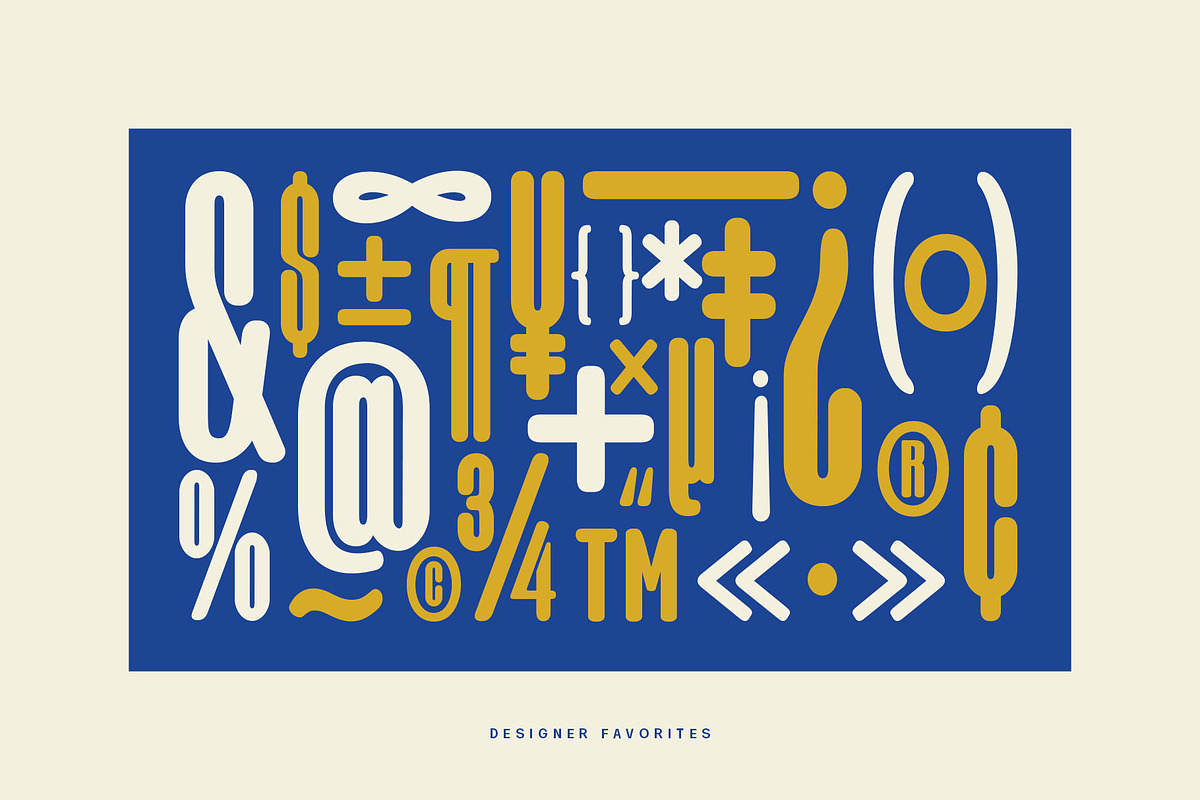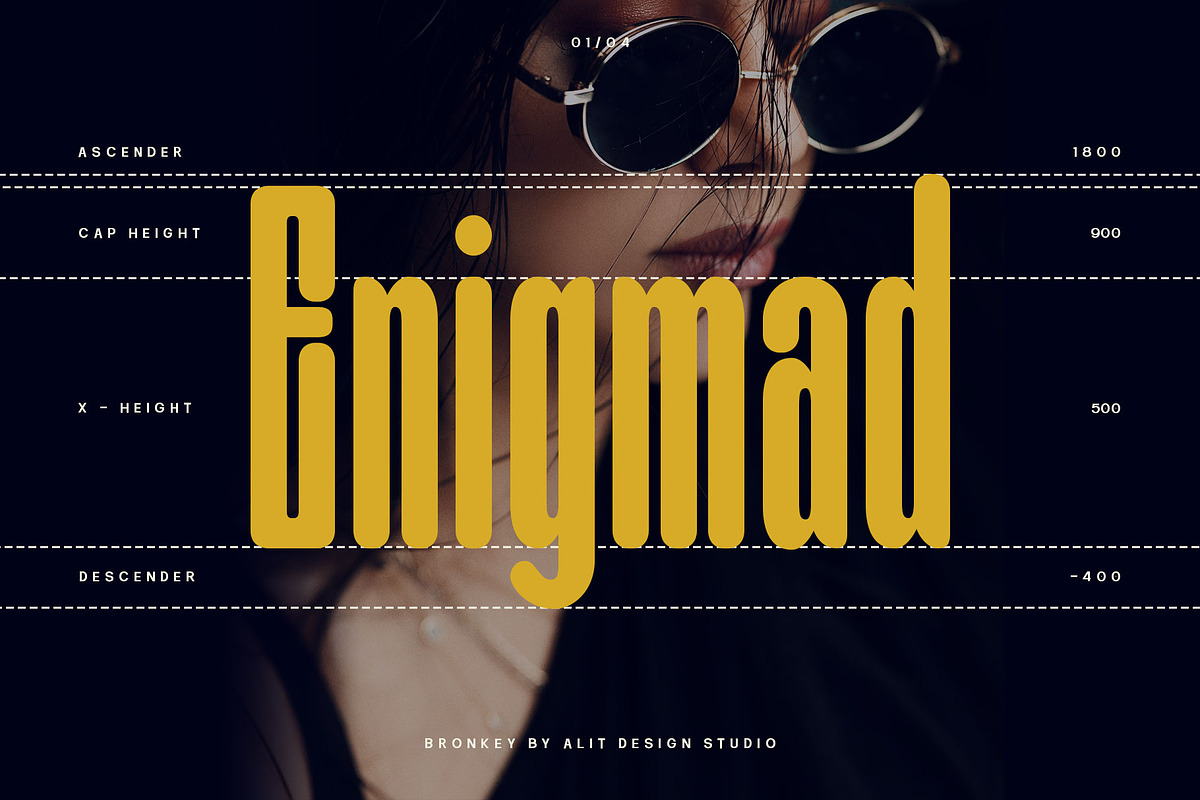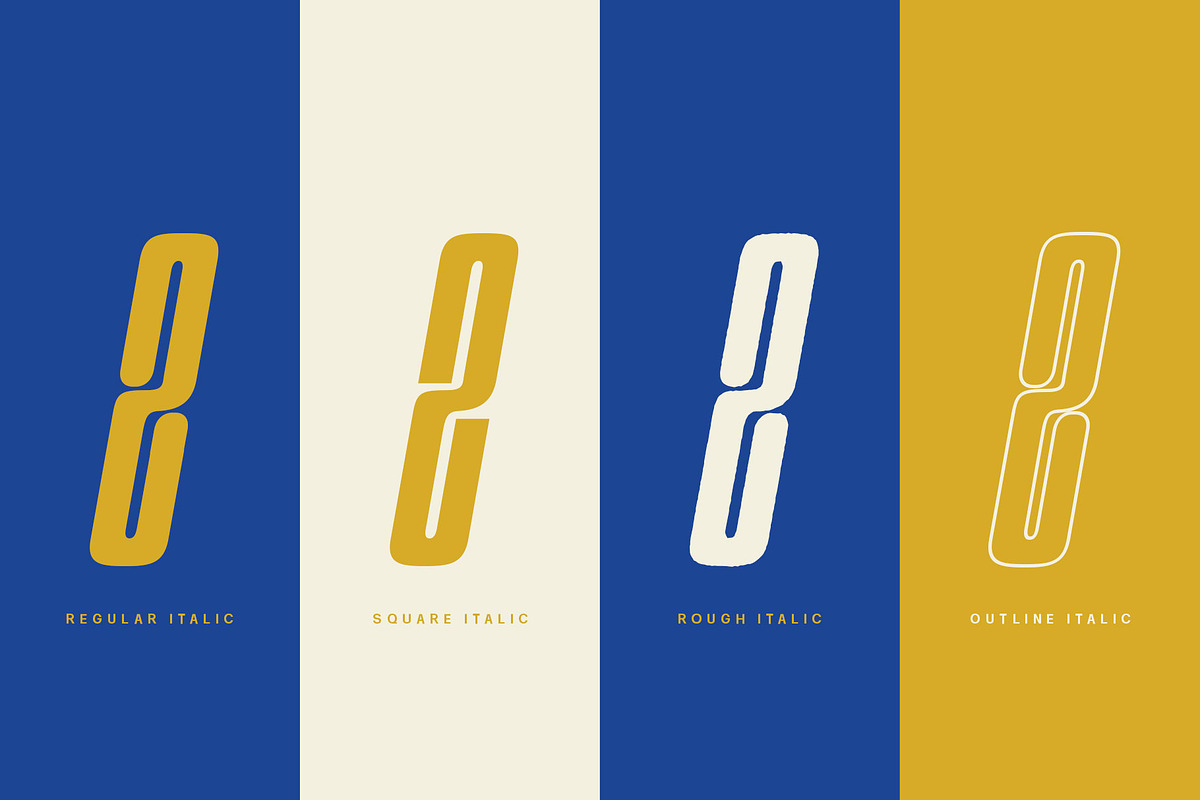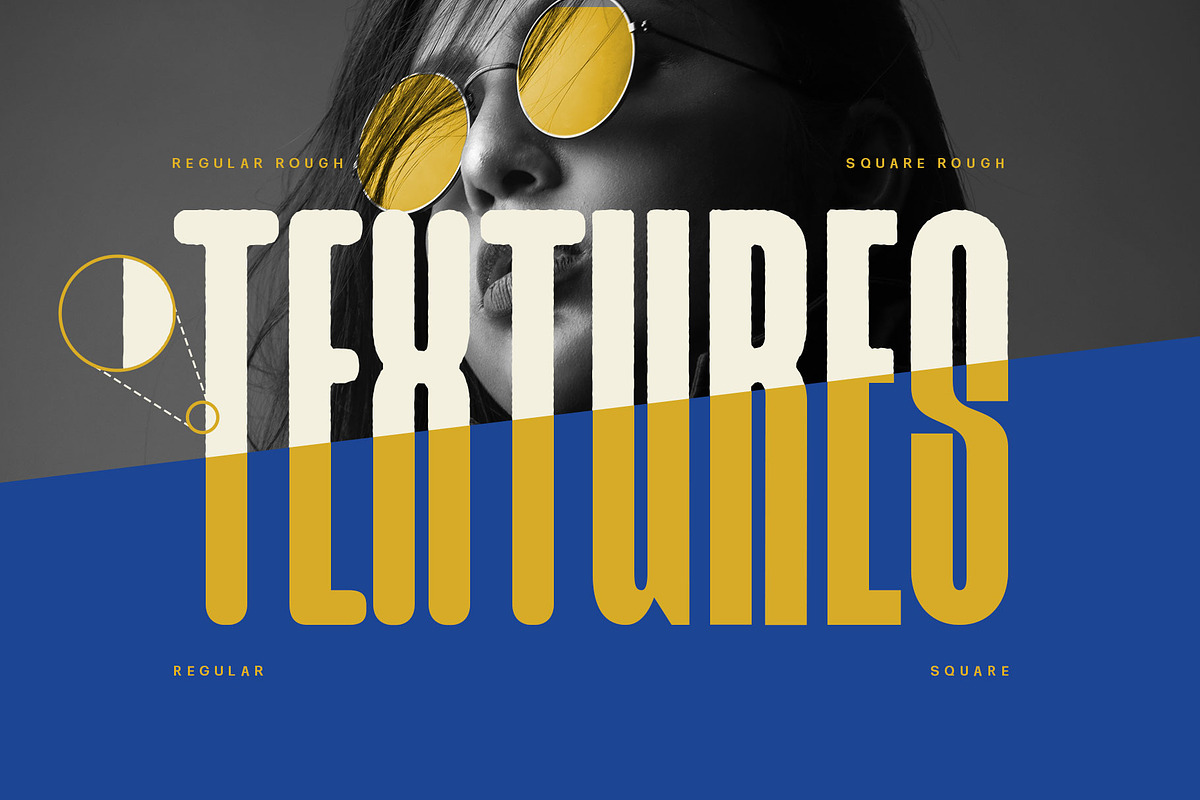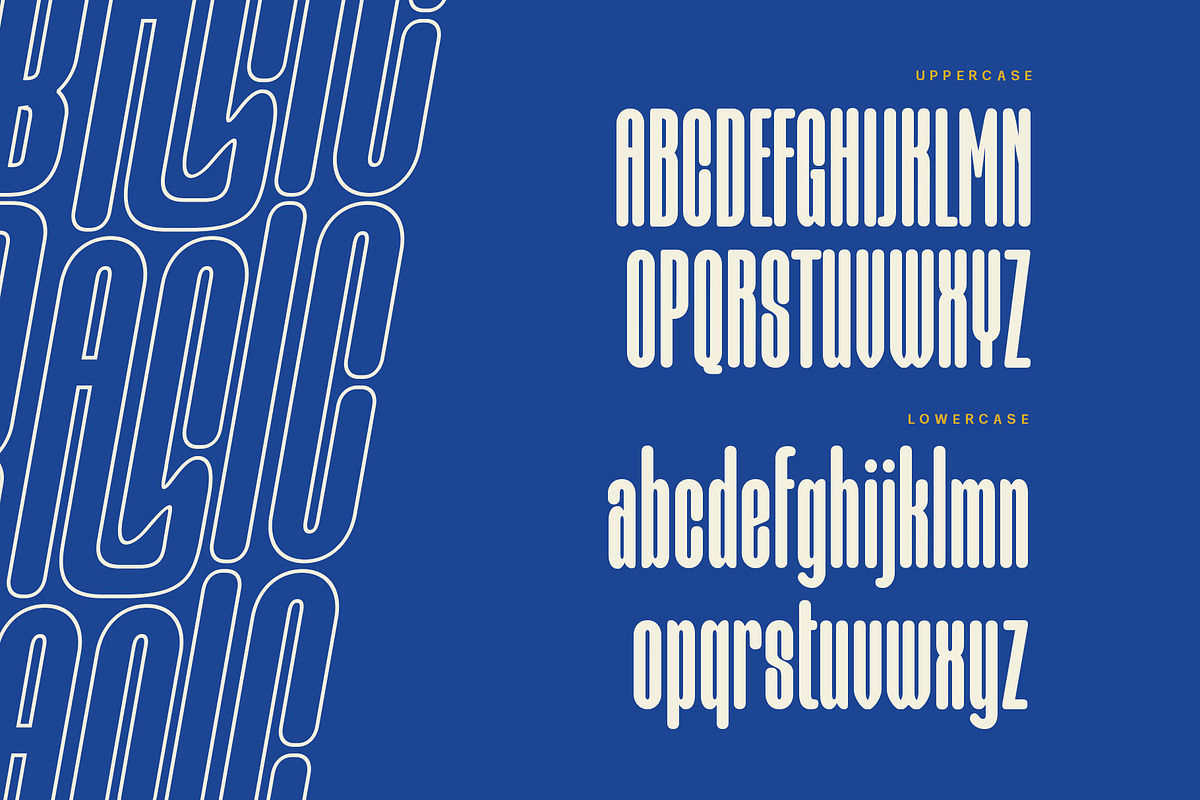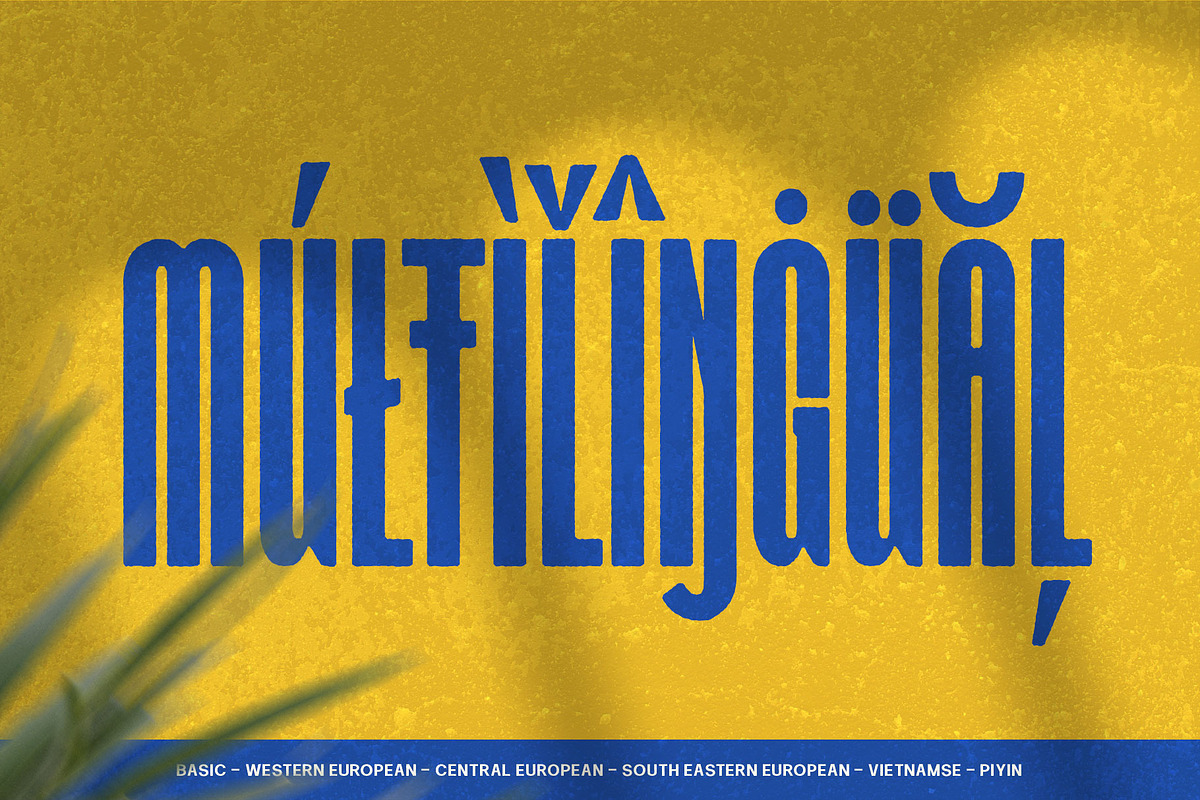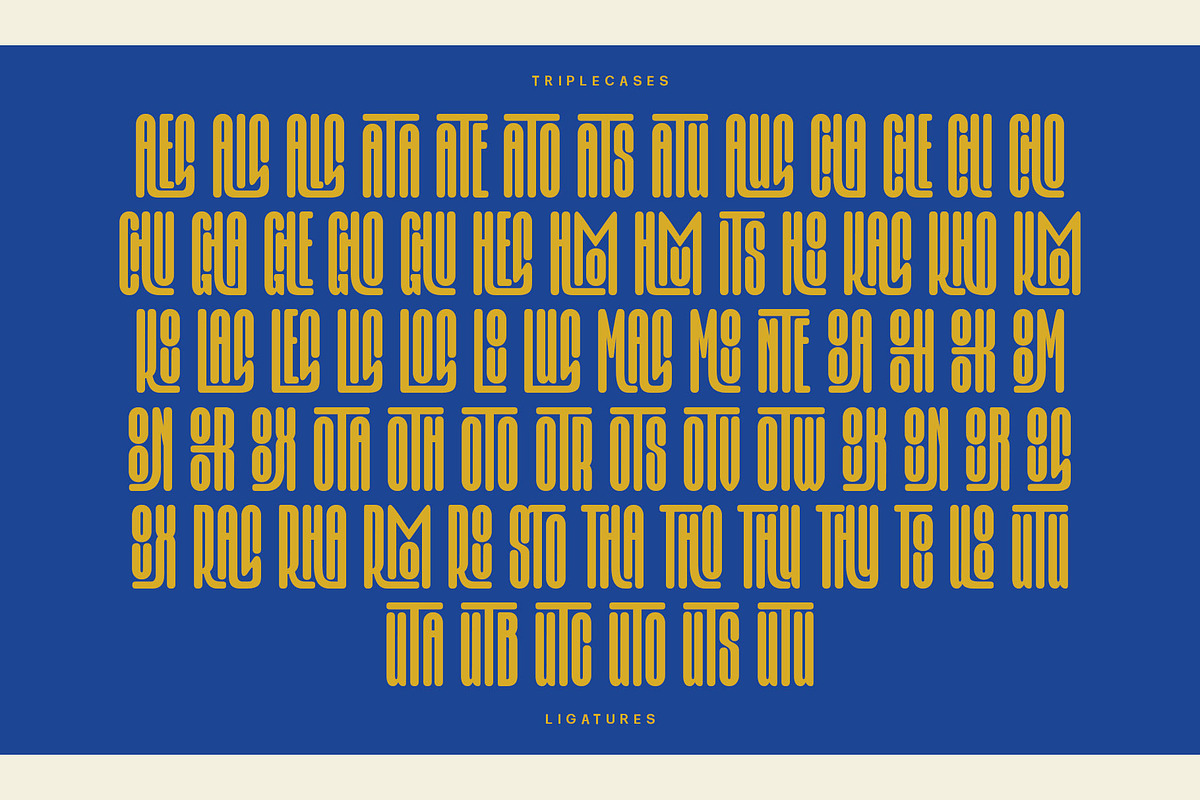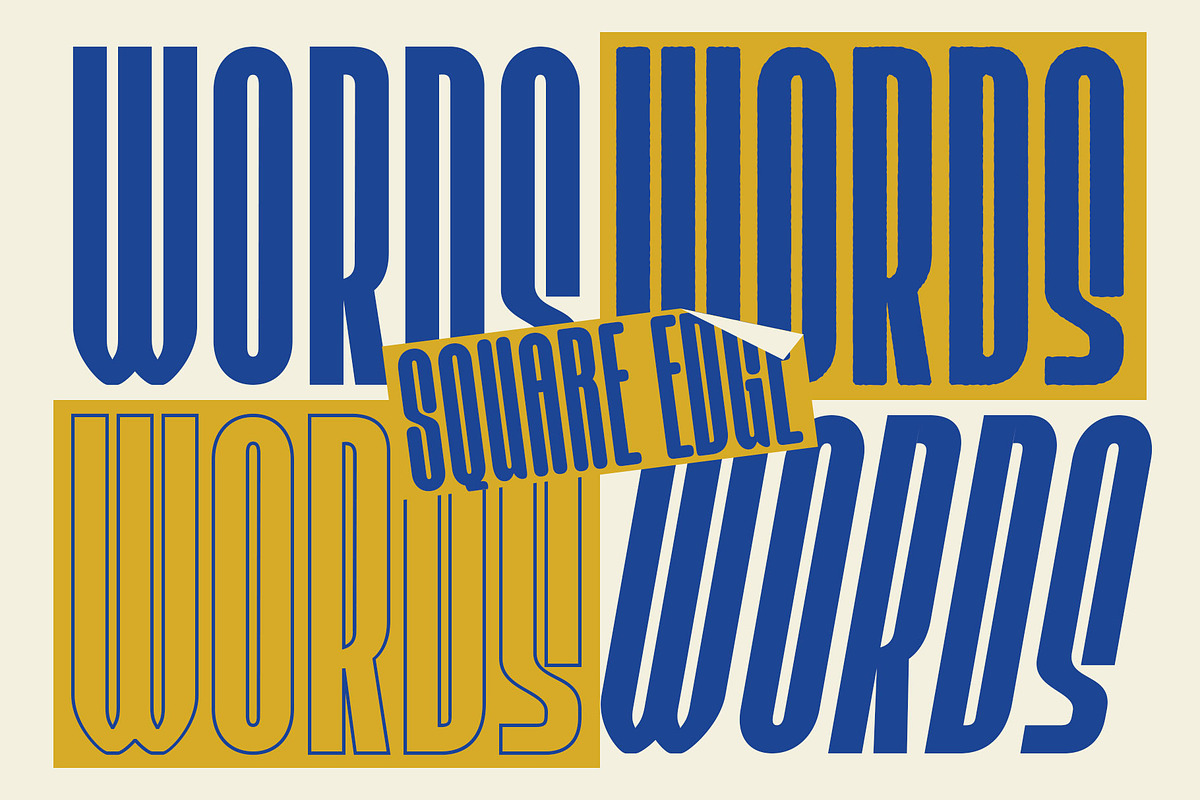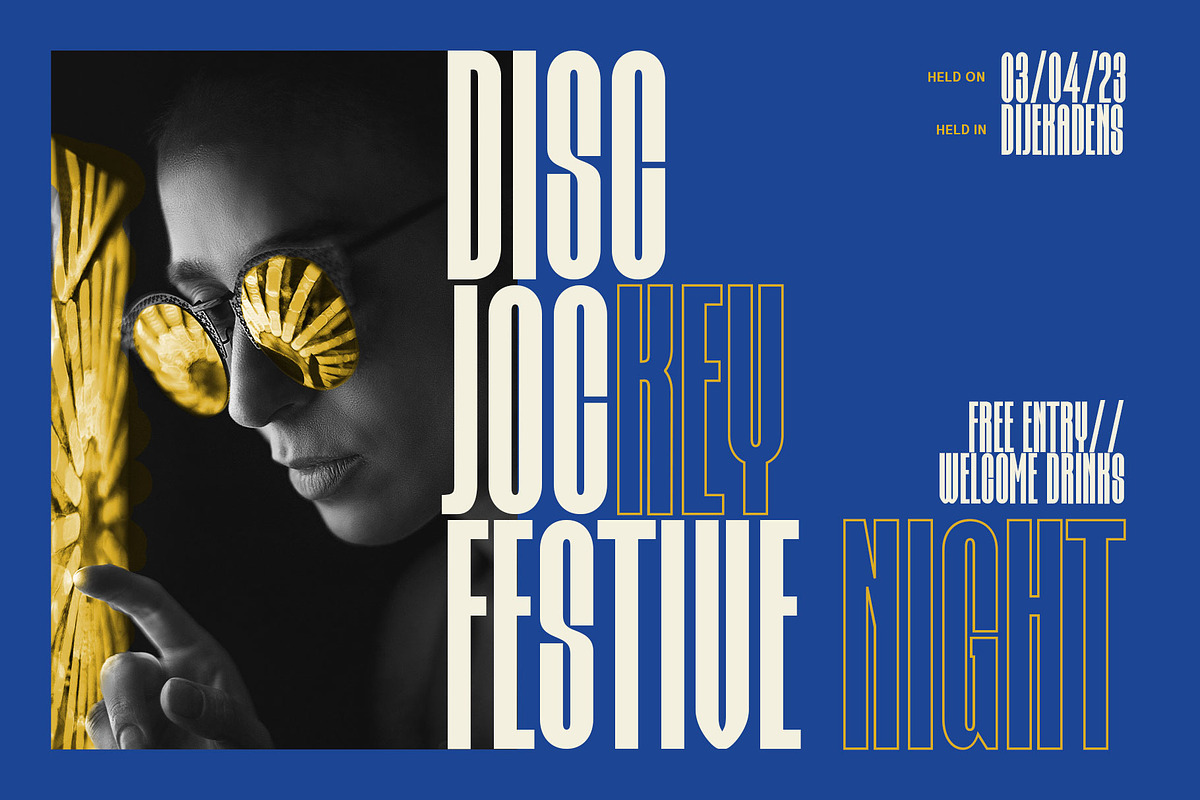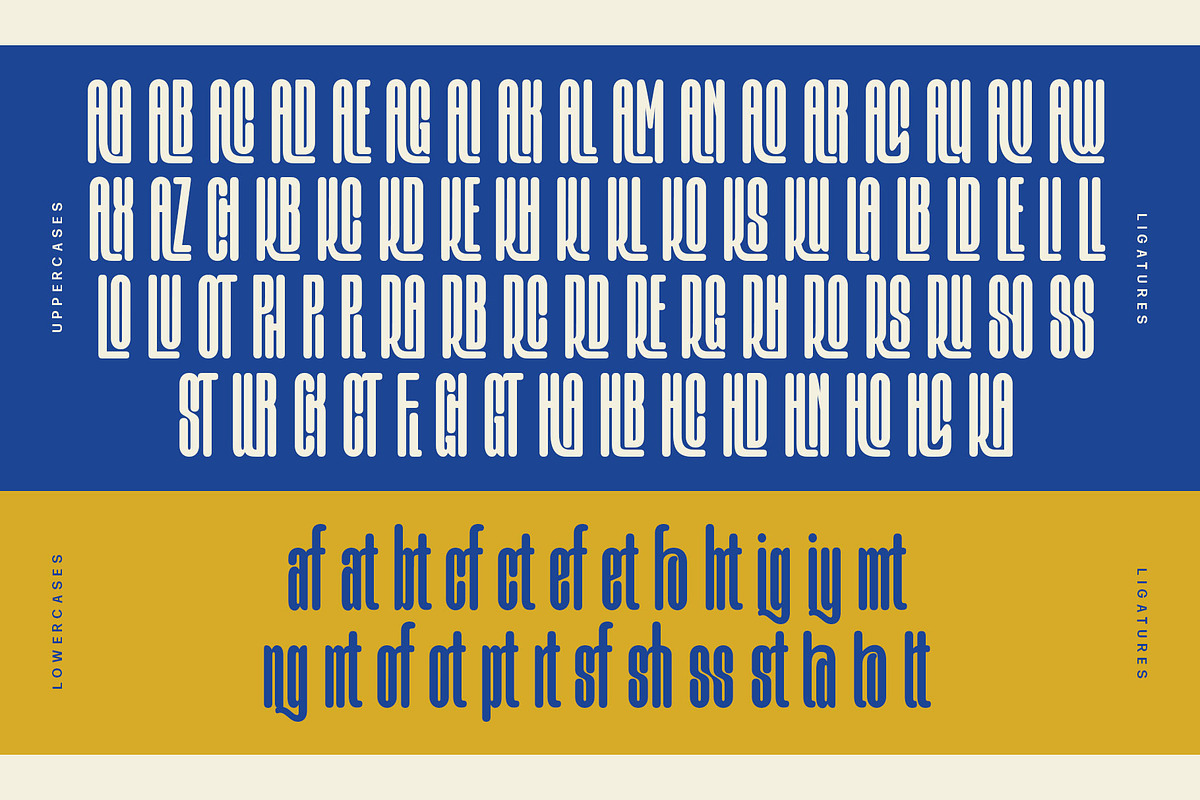
BRONKEY Typeface
BRONKEY Typeface is a sans serif font that has a bold, sporty feel to it. It comes in several styles, including regular, italic, outline, square, and rough, providing a versatile range of options for designers.
The font has a high body, making it stand out when used in large sizes, such as for headlines or titles. It contains 700 glyphs, including ligatures and alternates, allowing for greater flexibility and creativity in designing. Additionally, it supports PUA codes and is multilingual, making it accessible to a broad range of users.
Overall, BRONKEY Typeface is an excellent choice for those looking for a modern, bold font with a range of styles and features. Its sporty feel and high body make it a great choice for projects related to sports, fitness, or any project that requires a dynamic, attention-grabbing font.